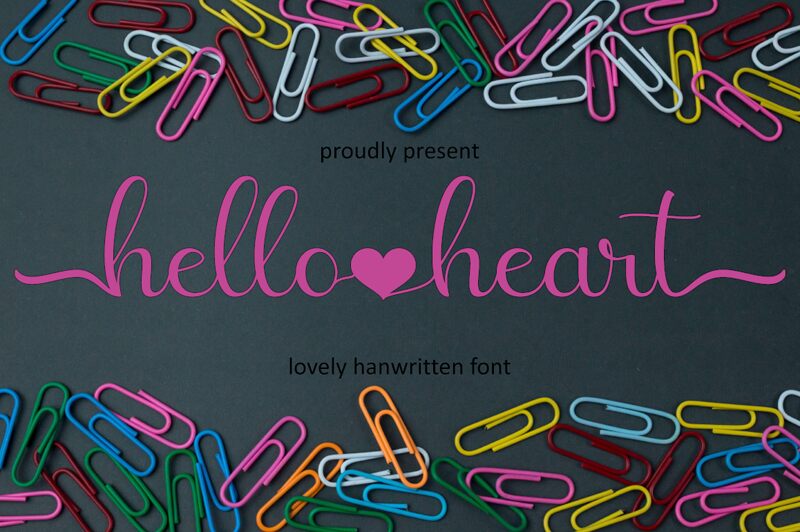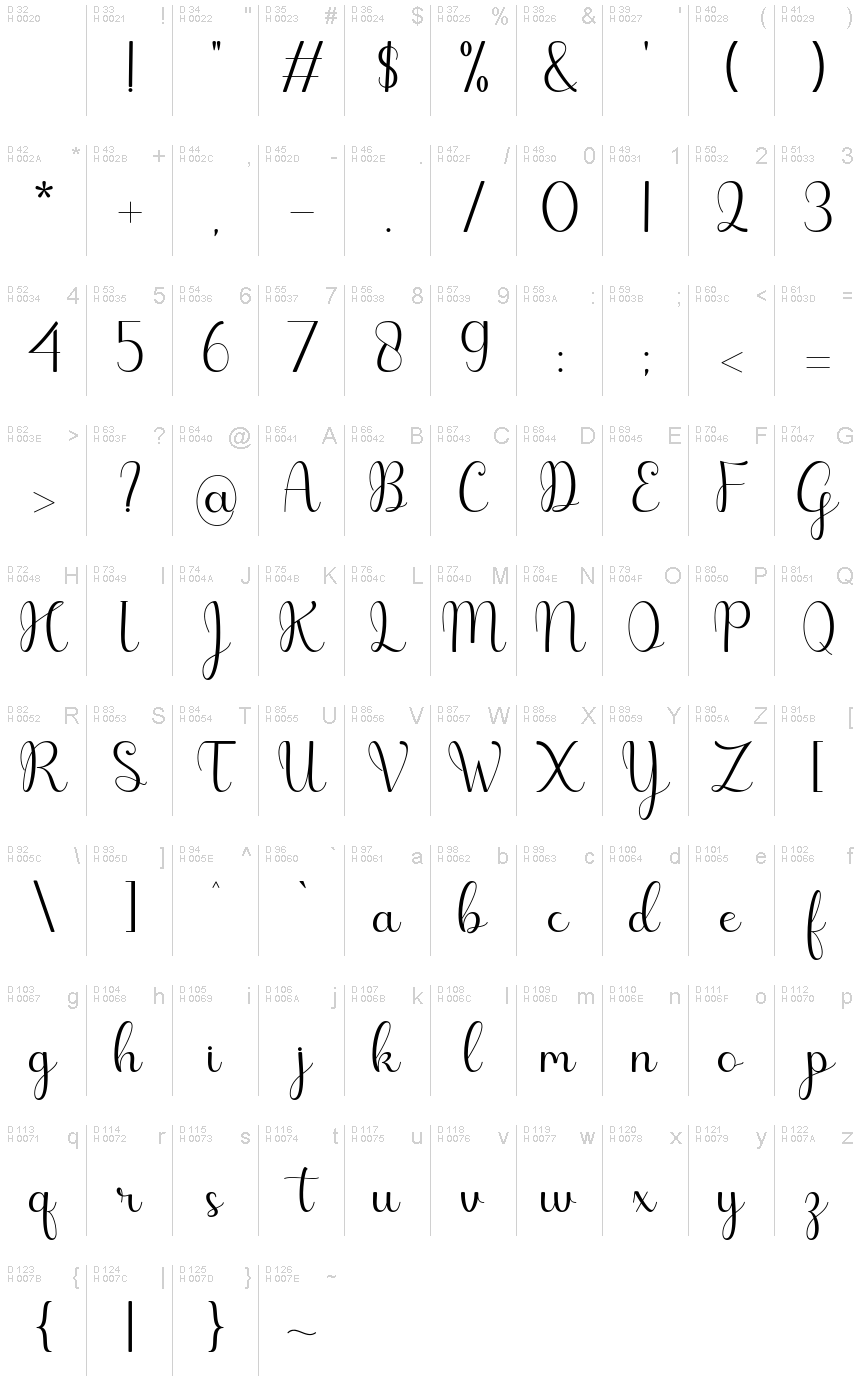
Helloheart
Helloheart, crafted by Hardiboy Design, embodies the timeless elegance of calligraphy with a modern twist. The font's fluid strokes and sweeping curves evoke the beauty of handwritten artistry, making it a captivating choice for projects that require a touch of sophistication and personal flair. With its graceful lines that dance across the page, Helloheart adds an element of charm and character to each word it forms.
Ideal for wedding invitations, branding materials, or any design that desires to create an intimate connection through typography, Helloheart's stylized letters are perfect for conveying emotion and elegance. Its distinctive style ensures that any text set in this font will be imbued with personality and visual interest, leaving a lasting impression on the viewer.